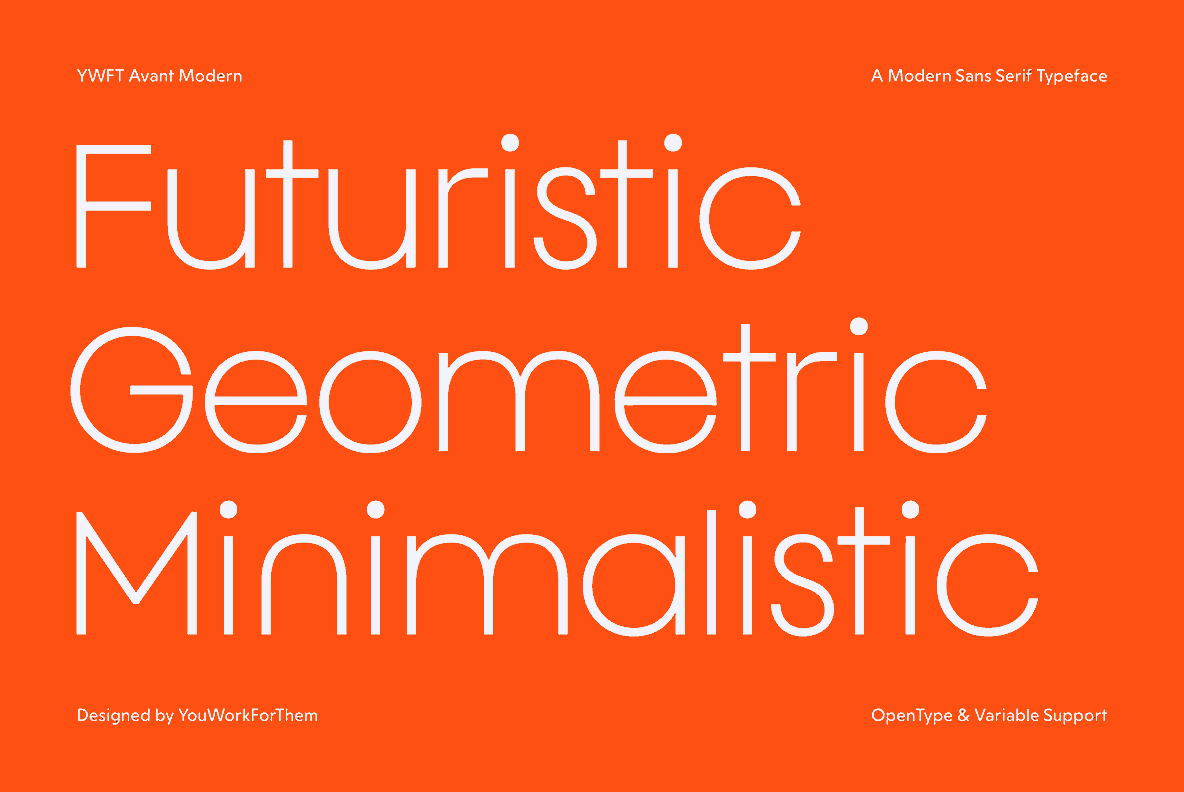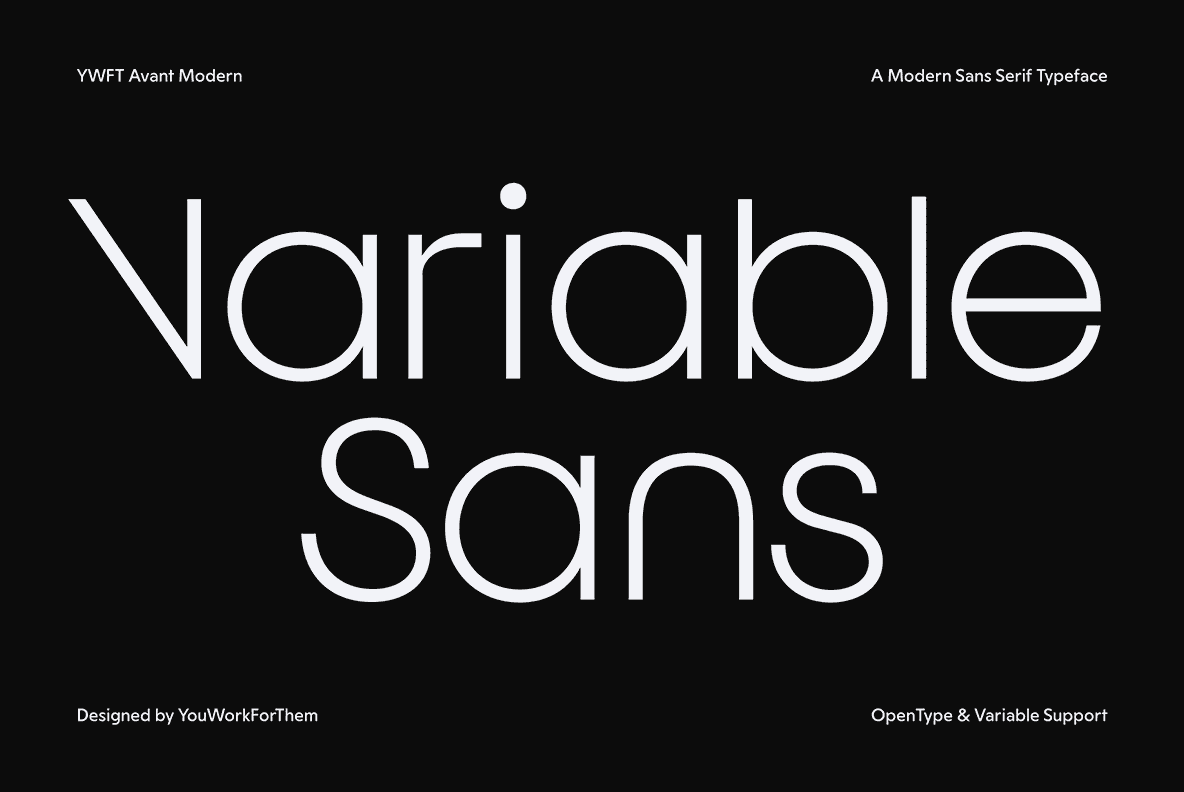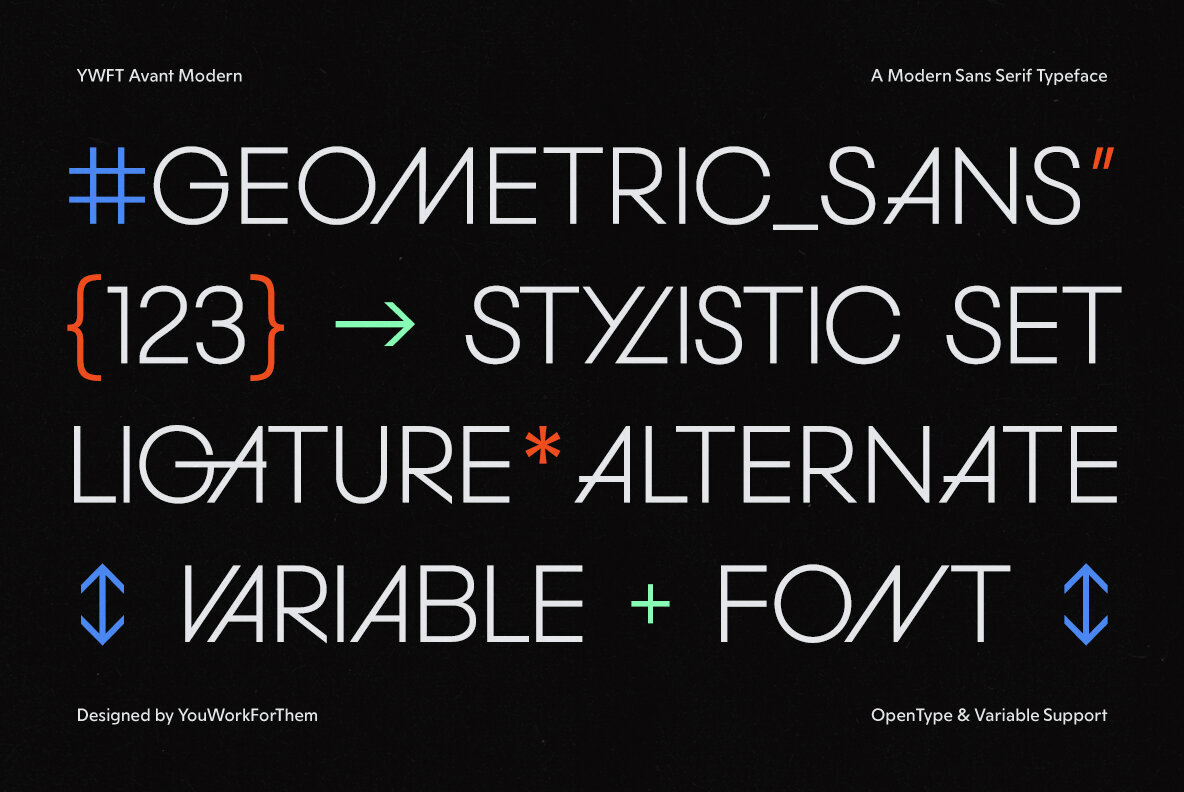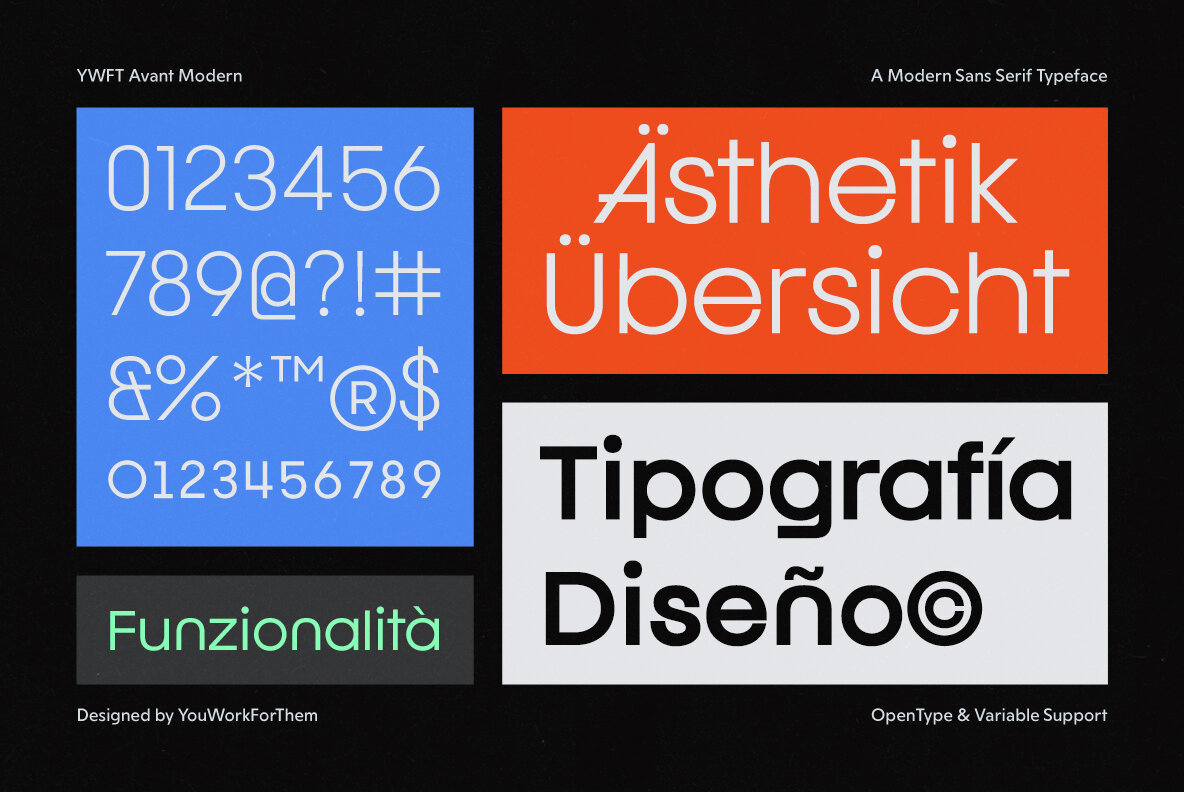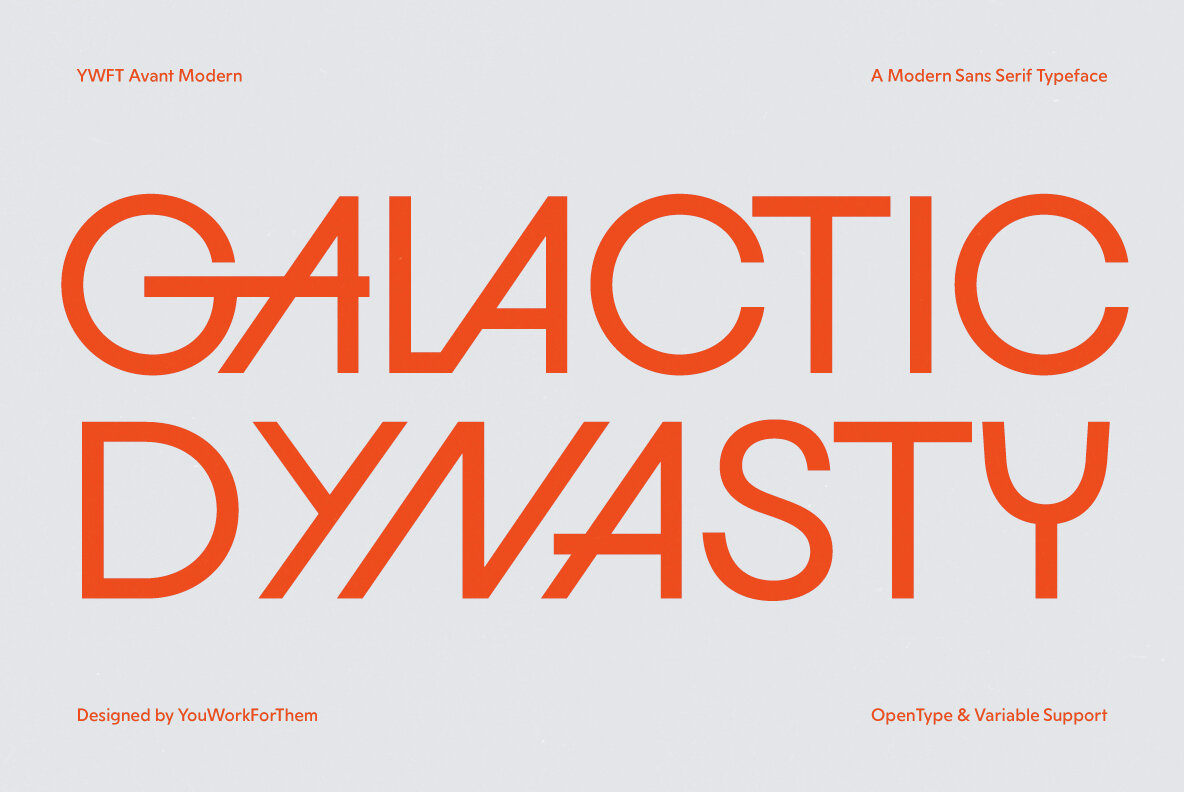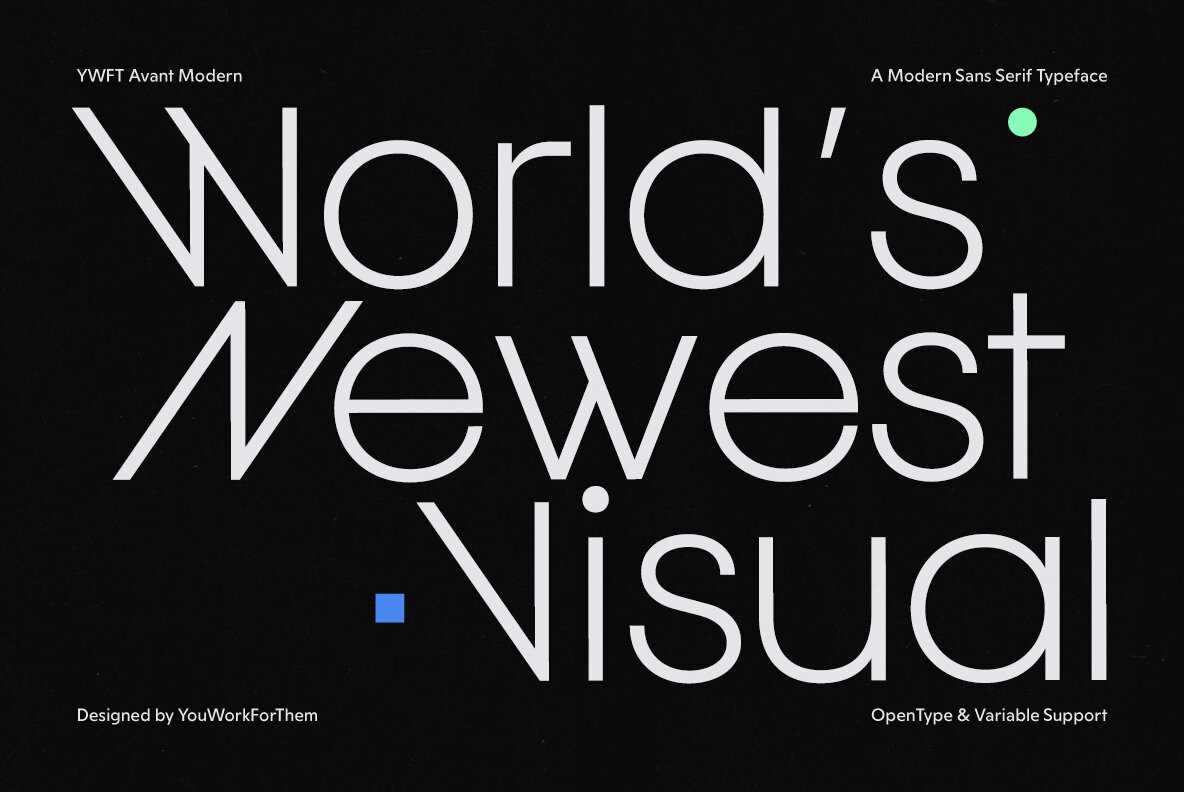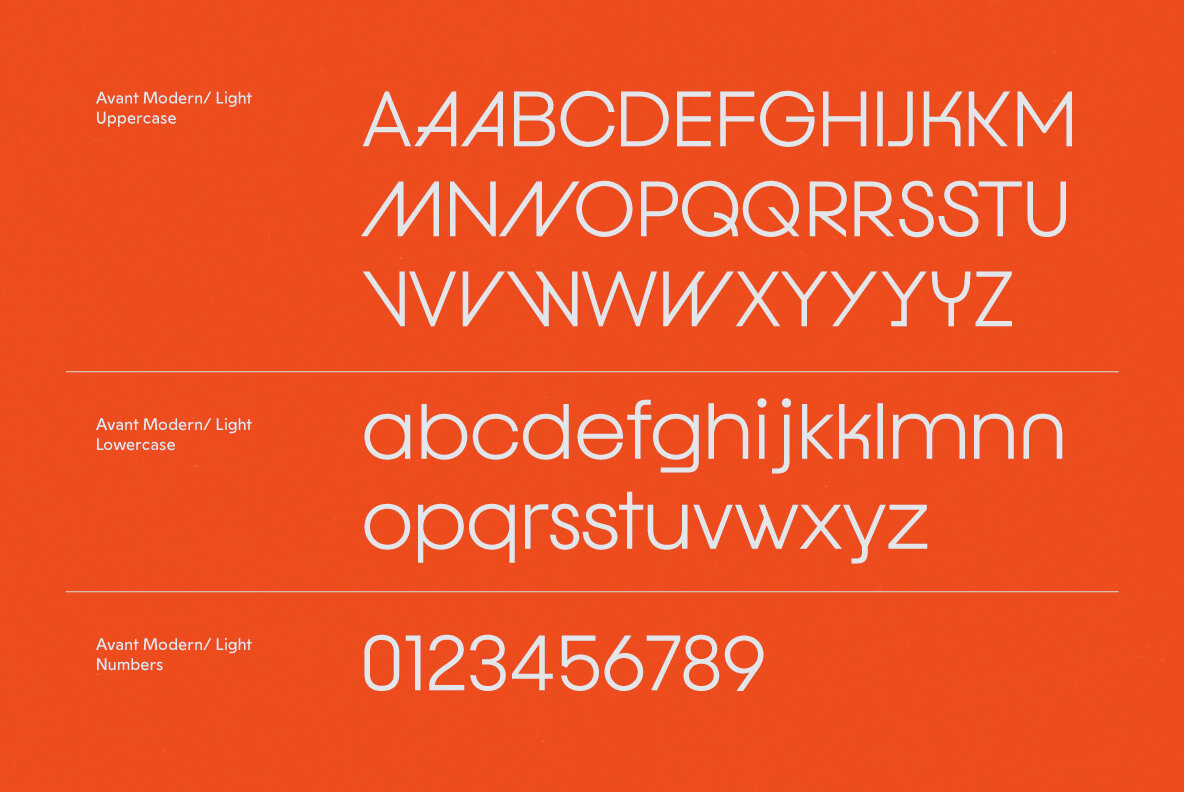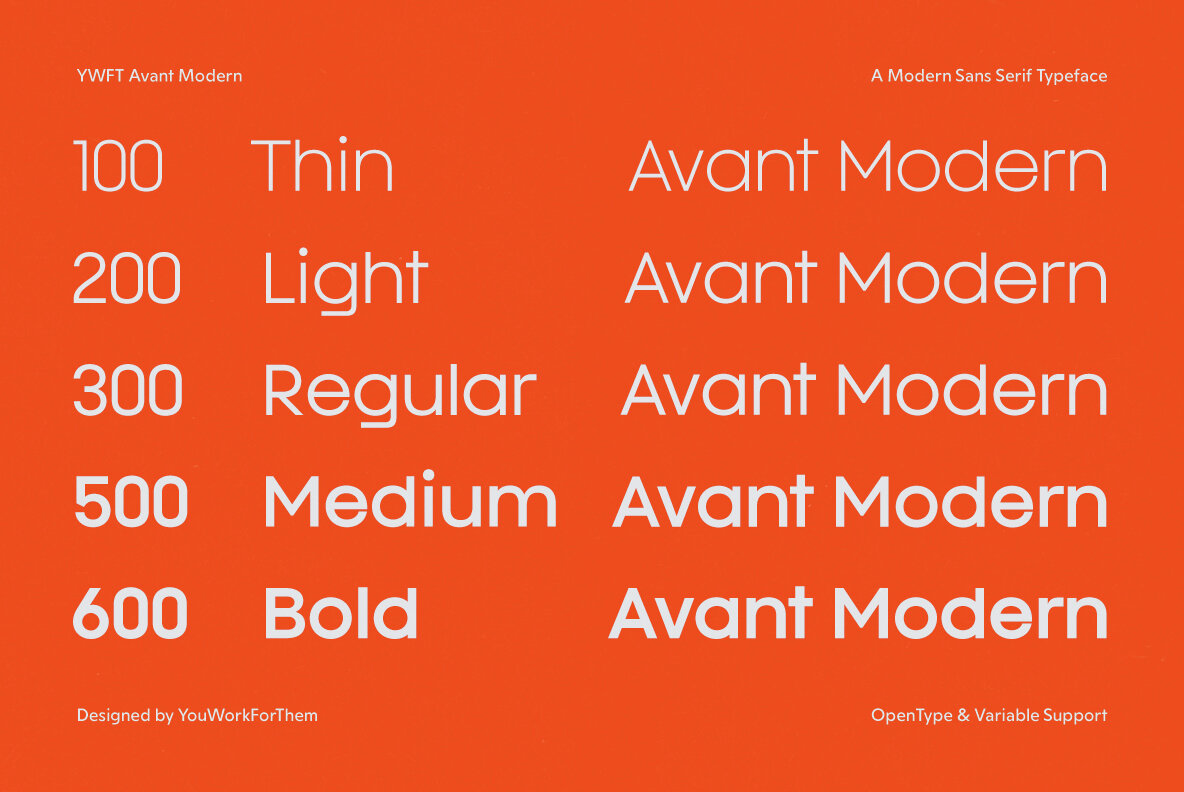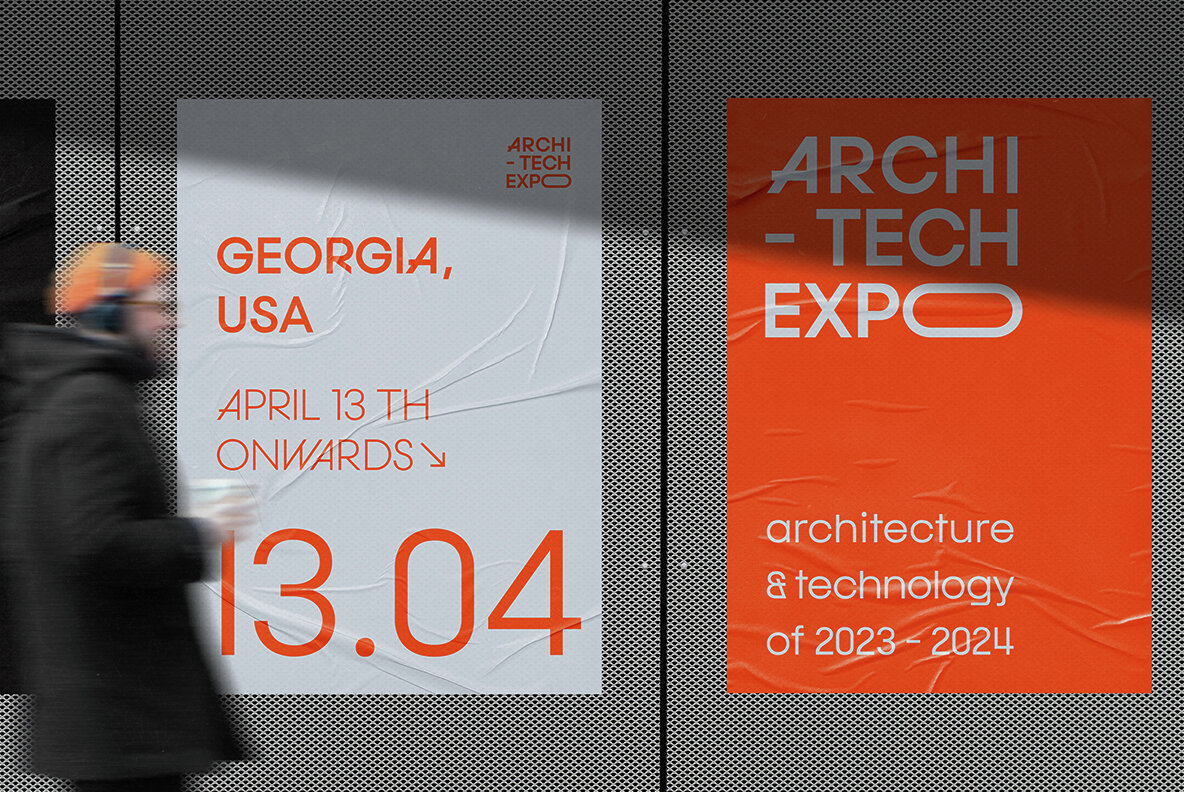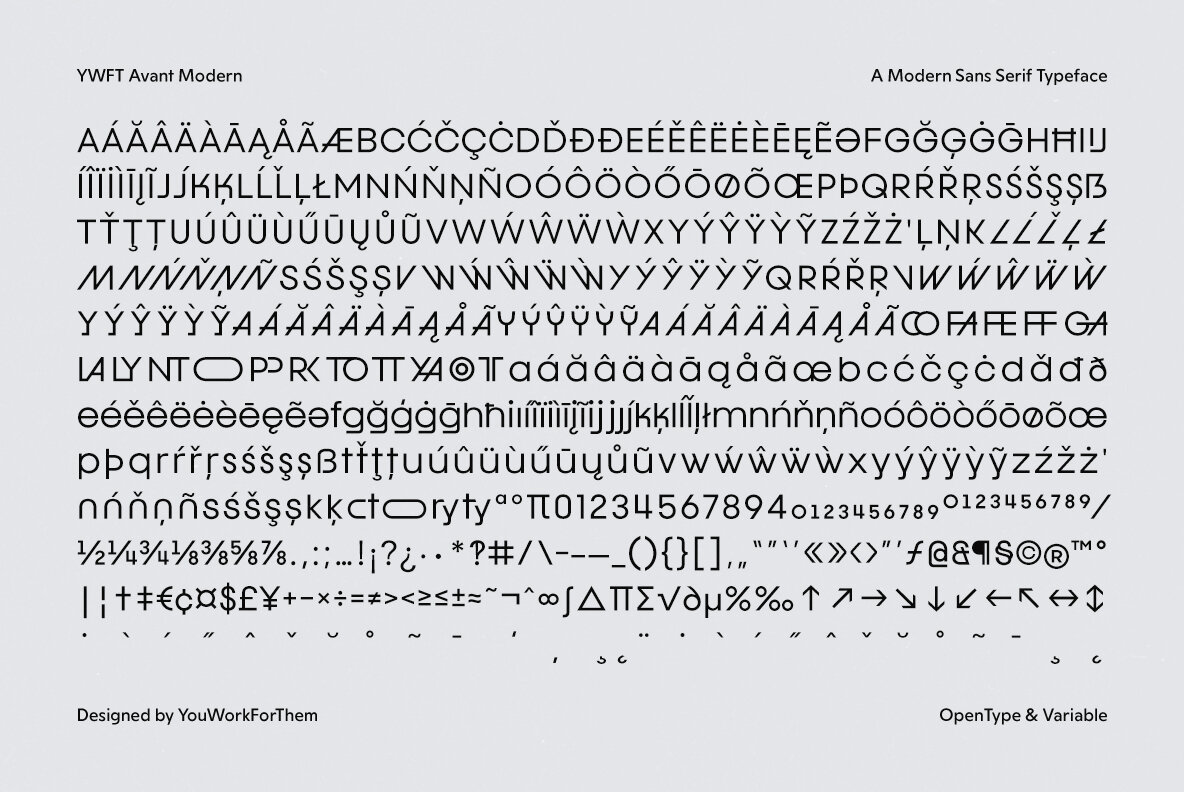
YWFT Avant Modern Font
YWFT Avant Modern is a groundbreaking sans-serif font that redefines modern typography. It takes inspiration from classic avant-garde styles while embracing contemporary design, offering designers a versatile and flexible solution. This comprehensive font family features five weights plus a variable option, close to 500 glyphs per weight, making it ideal for a range of design projects. Designed by YouWorkForThem, YWFT Avant Modern is available exclusively on our platform, providing designers with an affordable and easy-to-license font option. This font is designed for the digital age, making it perfect for: By blending classic inspiration with modern design principles, YWFT Avant Modern offers a unique solution for designers seeking an avant-garde font that's both versatile and affordable. With our easy-to-license model, you can purchase once and enjoy unlimited use with our pay-once web fonts option. Explore other innovative sans-serif fonts like YWFT Avant Modern at YouWorkForThem. Check out our Sans-Serif Fonts collection to find the perfect font for your design projects. Modernize your digital designs with YWFT Avant Modern, the sans-serif font that combines classic elegance with modern versatility. Additional products used for slideshow images:YWFT Avant Modern: A Revolutionary Sans-Serif Font for the Digital Age